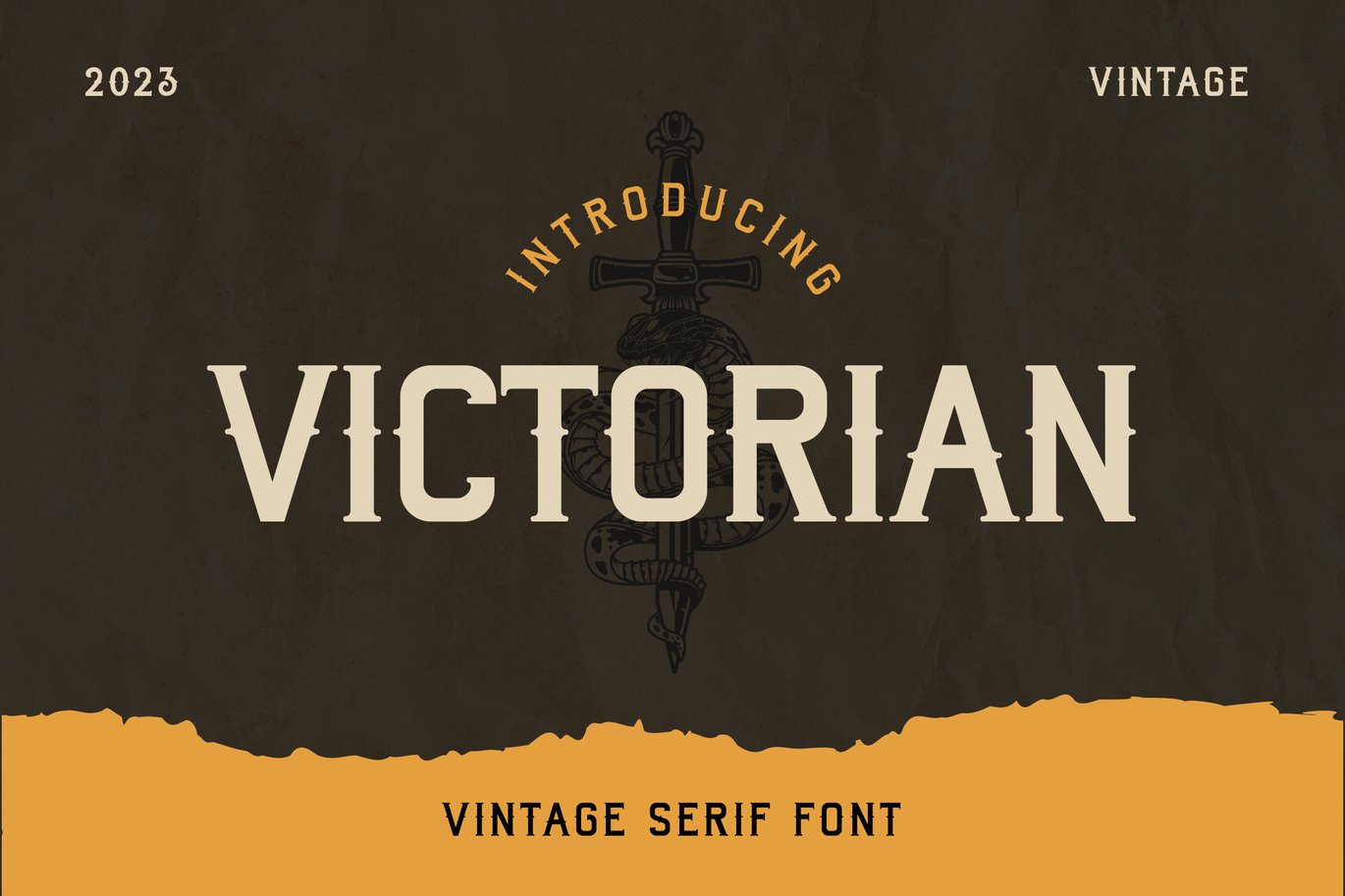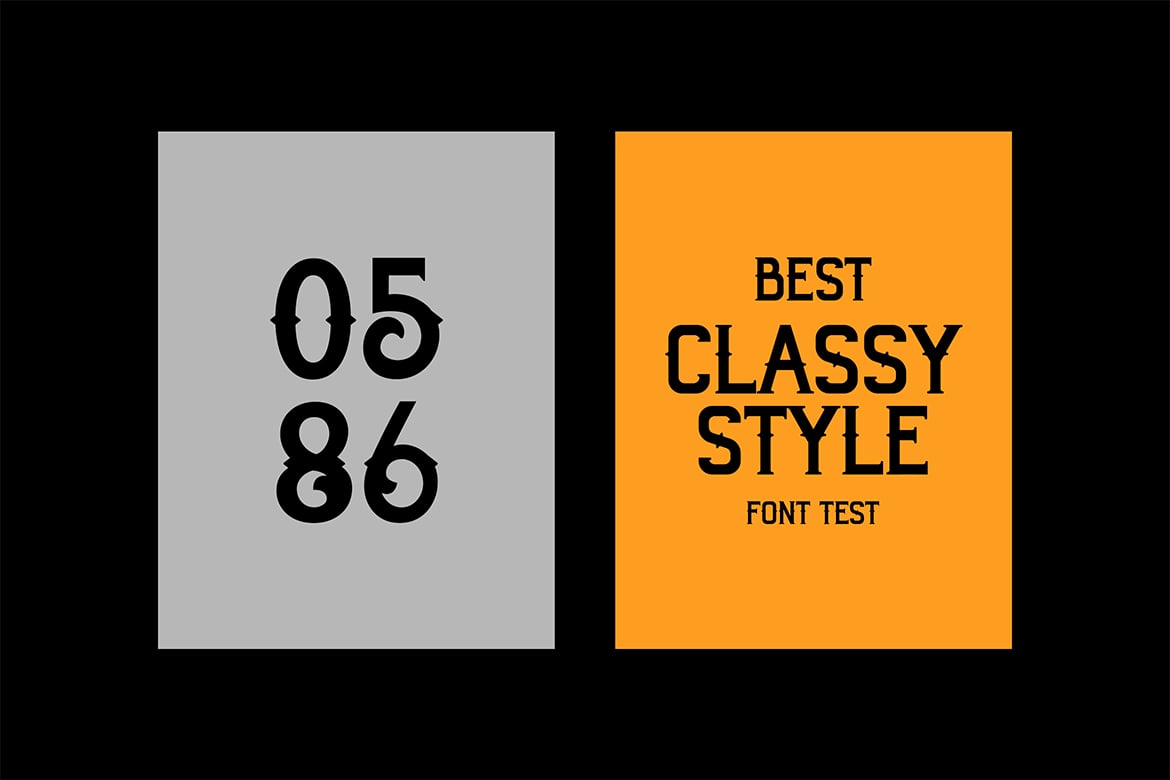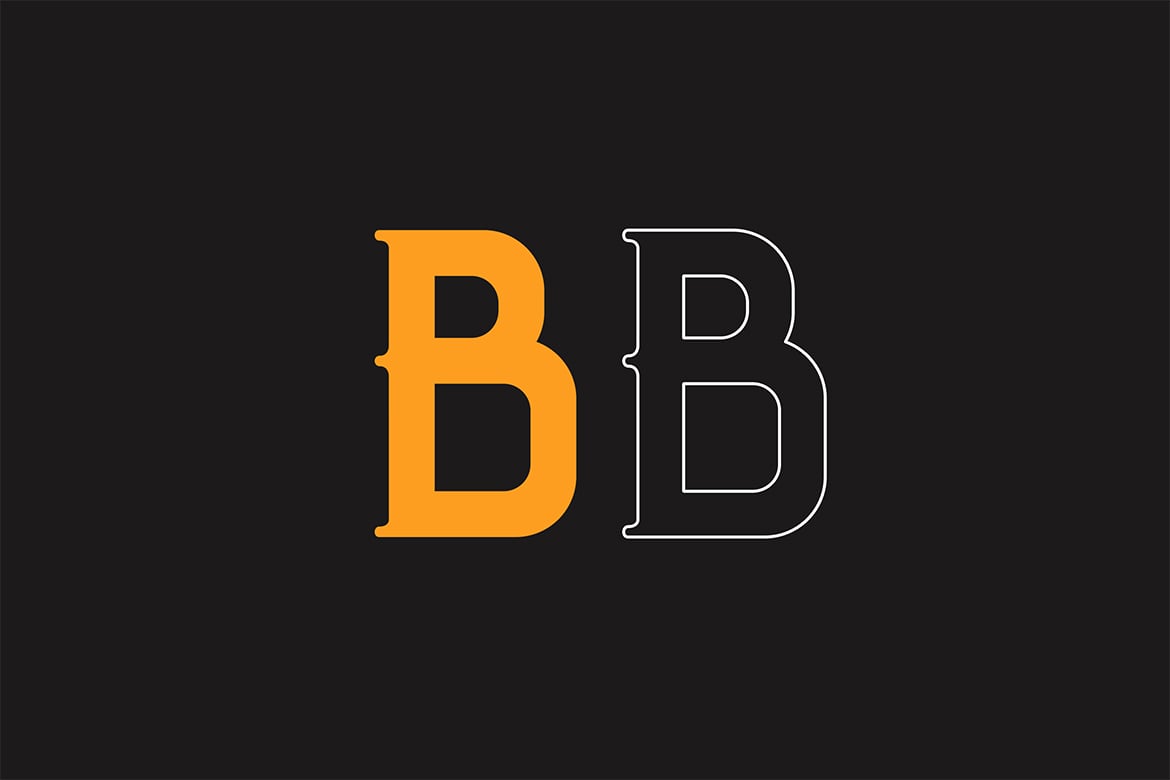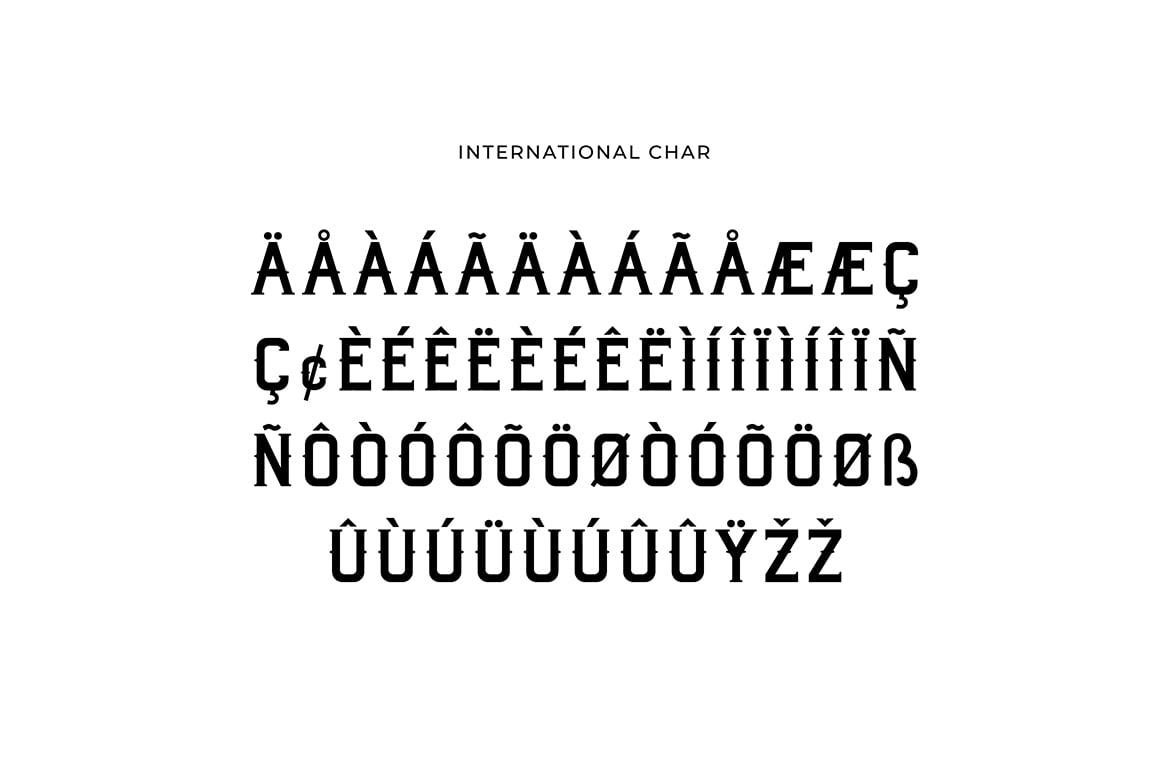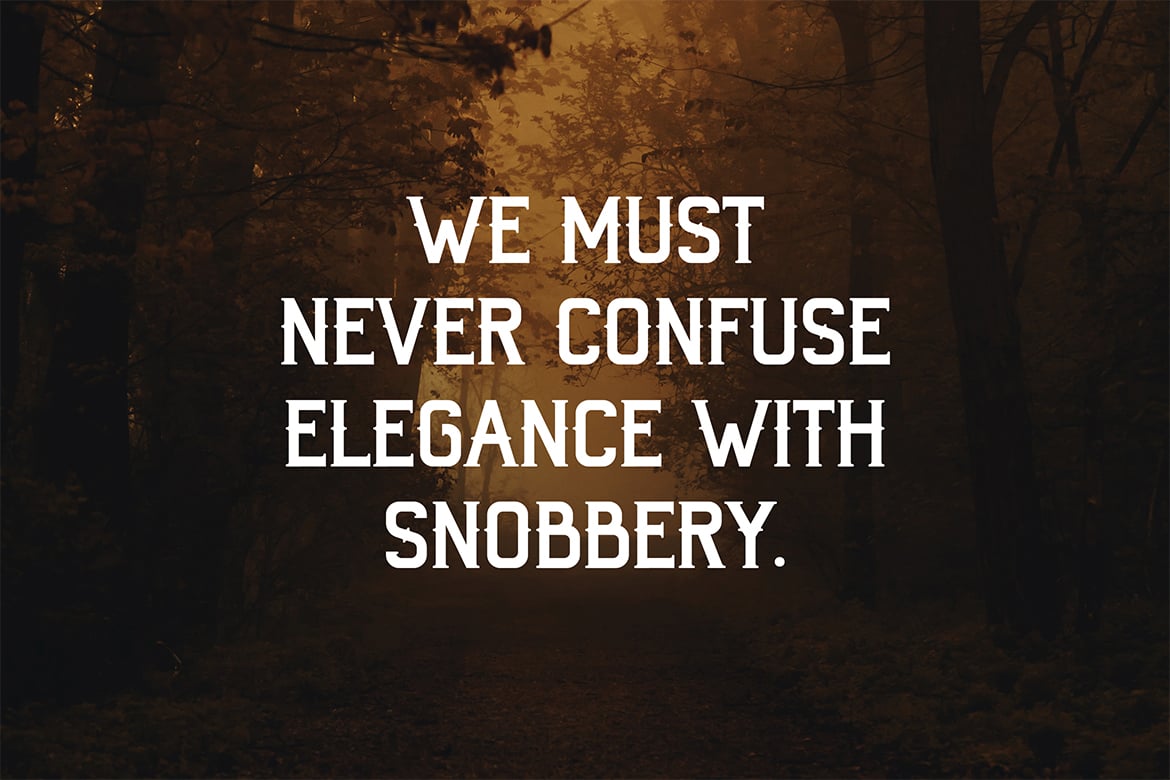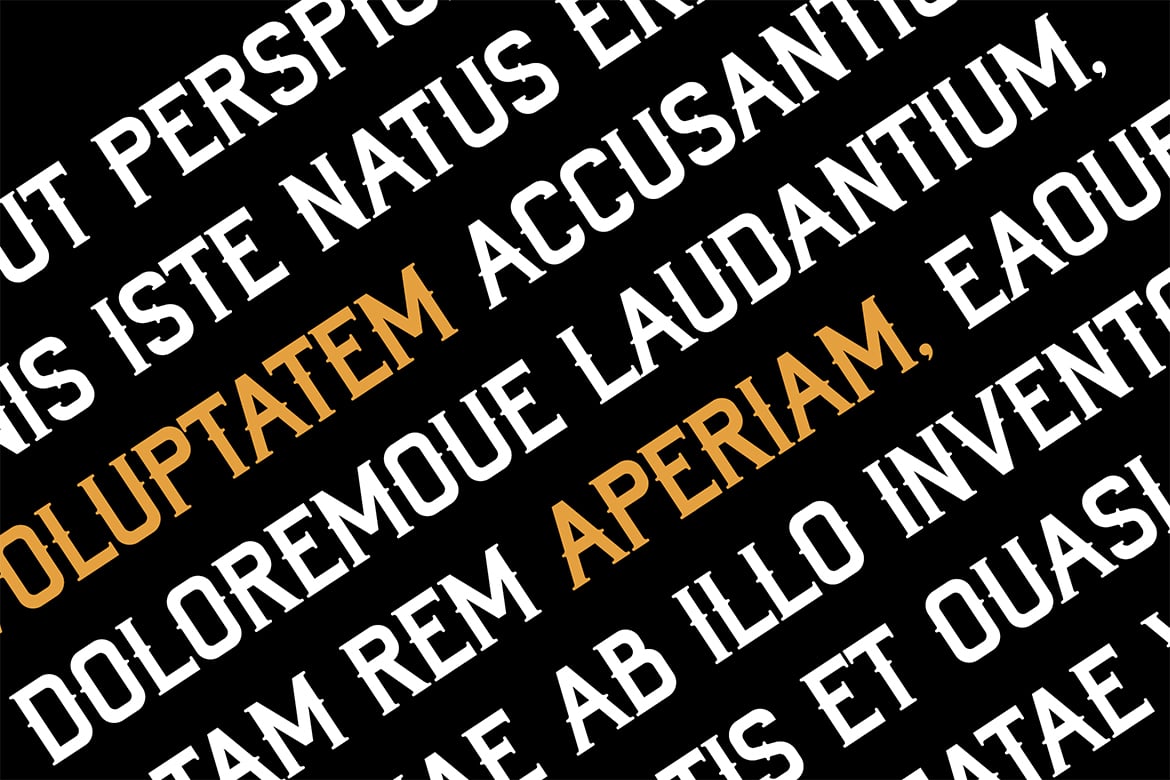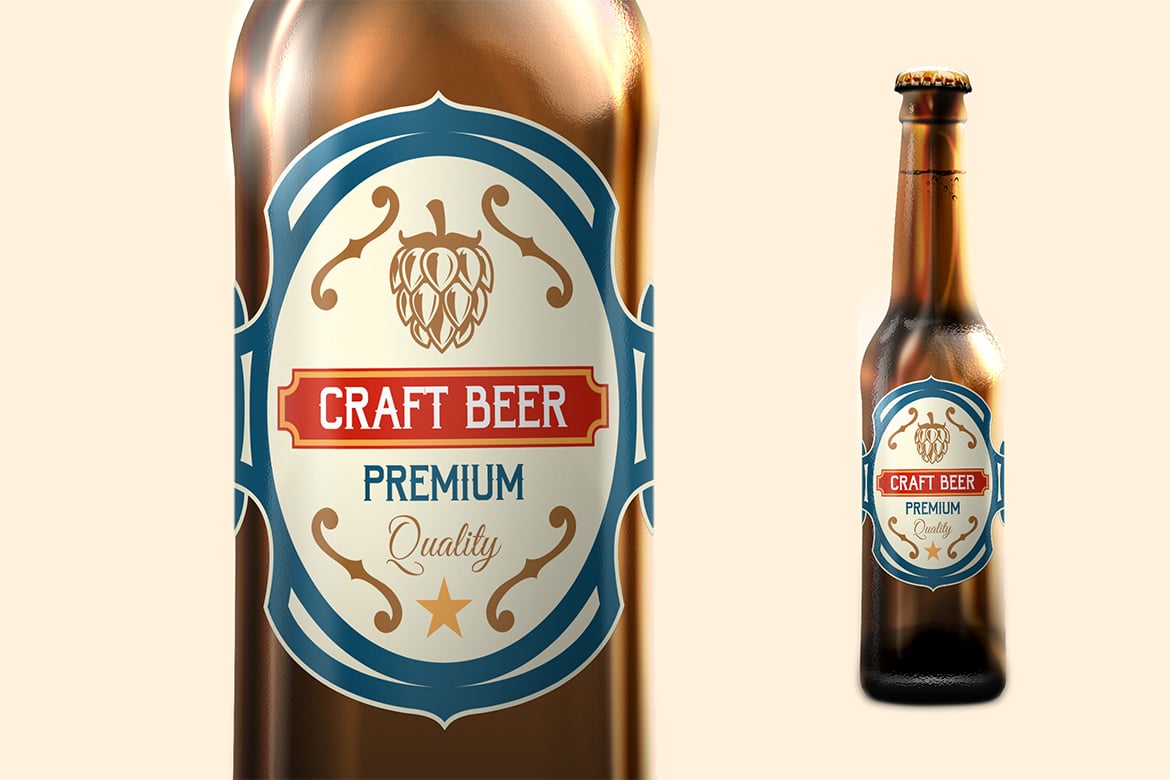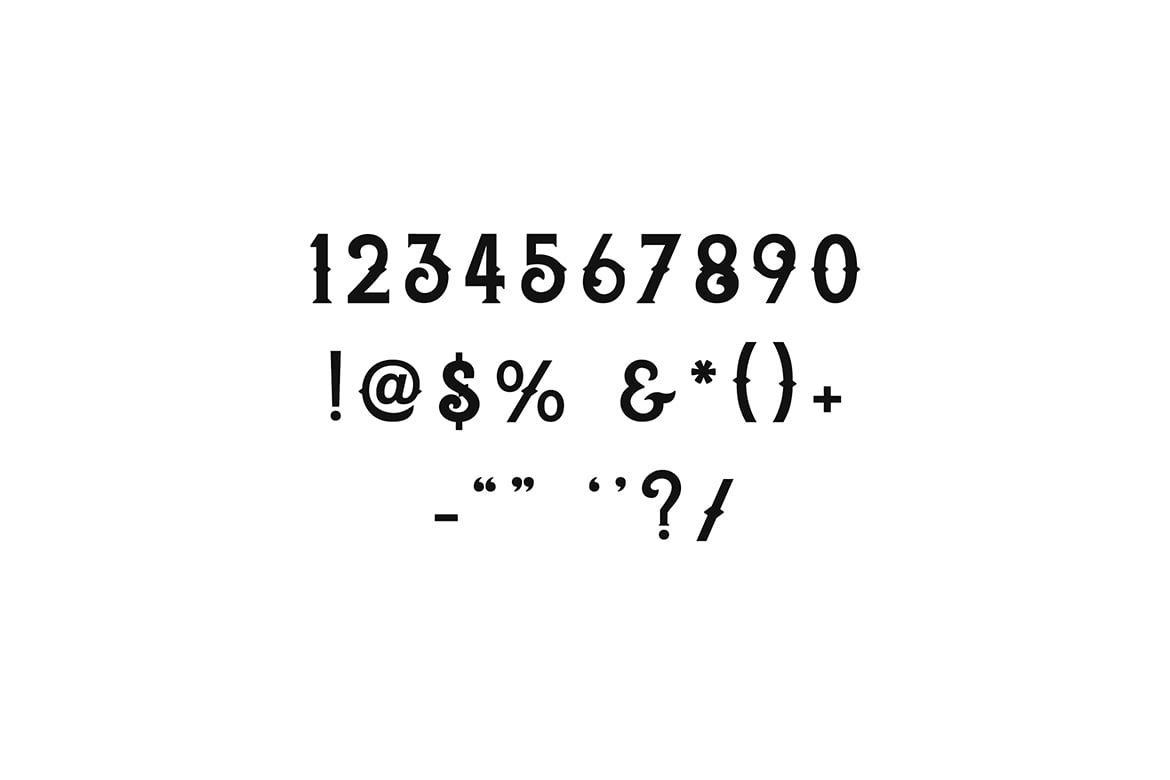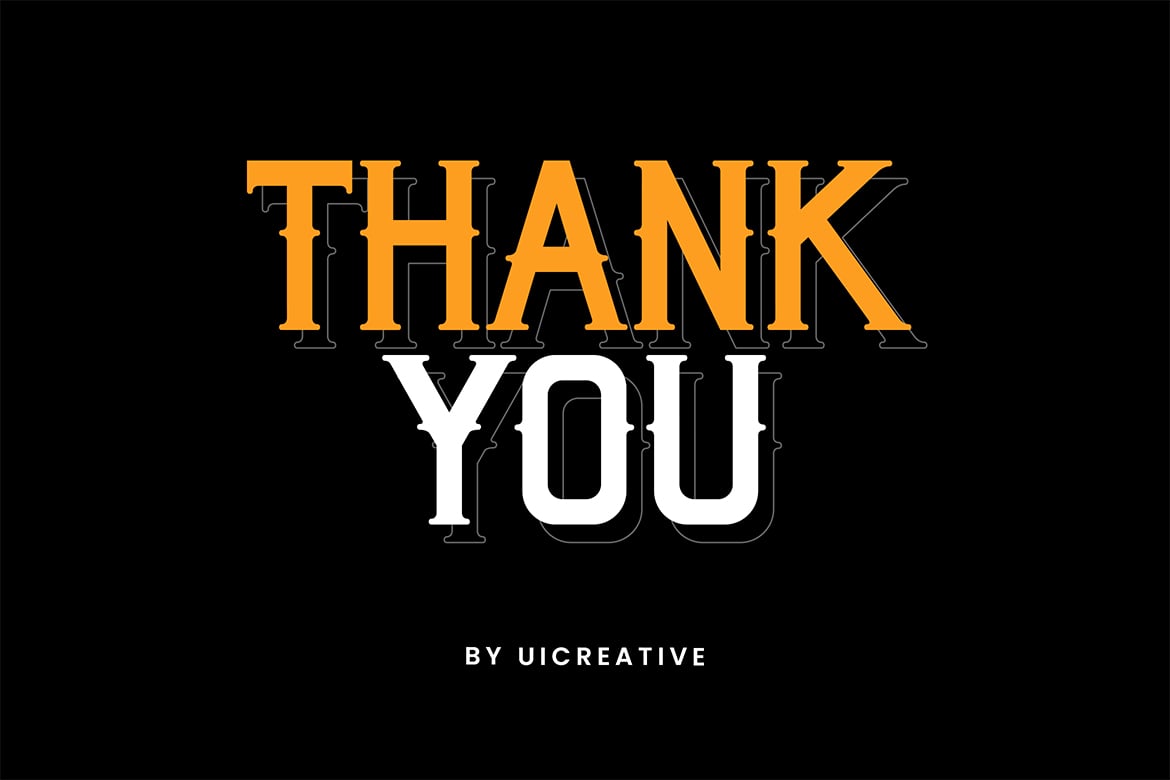
Victorian Vintage Serif Font
Introducing our new product the name is Victorian Vintage Serif Font. Vintage Serif font that feels beautiful classy, elegant, and modern. This font is perfectly suited for a wide variety of projects, such as signature, stationery, logo, wedding, typography quotes, magazine or book covers, website headers, clothing, branding, packaging design, and more. Also, fashion-related branding or editorial design displays both masculine and feminine qualities.